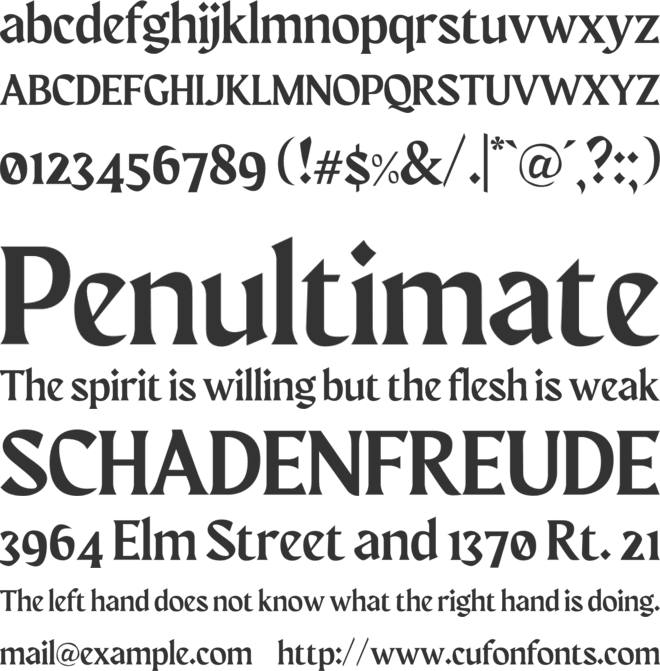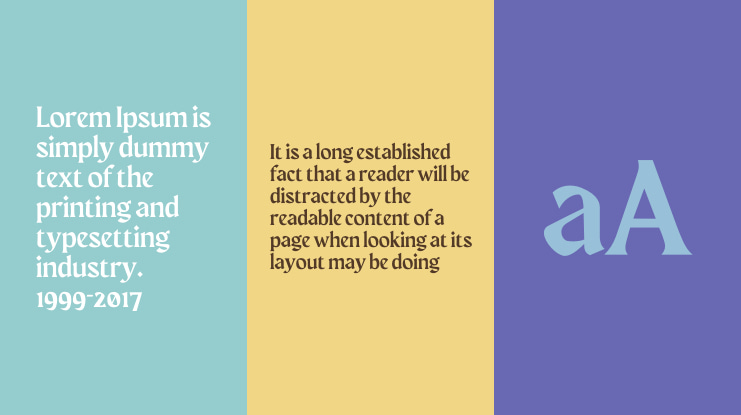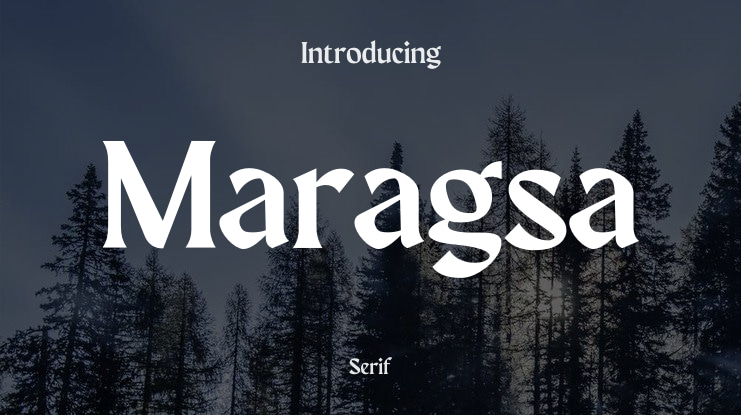
Maragsa Font
Maragsâ is a display typeface that owes its form to one of the accent marks used as a guide to the correct pronunciation of Filipino words—the pakupyâ accent—whose tapered tips heralded the sharp edges, hastily-flowing strokes, and abrupt cuts in the characters, similar to the manner words with the stress should be spoken.